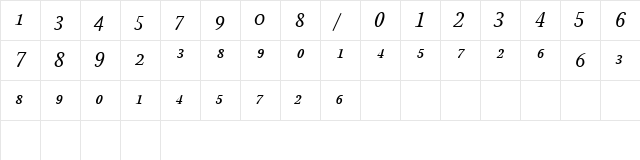
StonePrintFracs Italic
StonePrintFracs offers clean, dependable letterforms without strong stylistic allegiance, making it a practical choice for designers who need flexibility. The slanted form adds forward momentum and visual energy.
Pro Tip: Try StonePrintFracs for annotation and caption copy alongside an upright companion — the contrast in angle creates a dynamic but ordered typographic system.